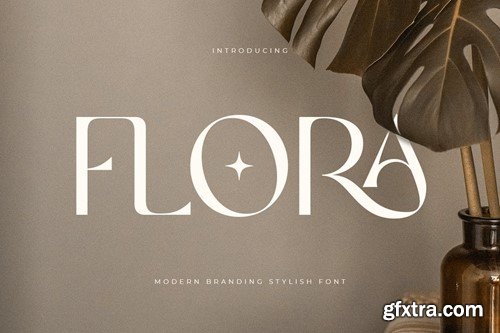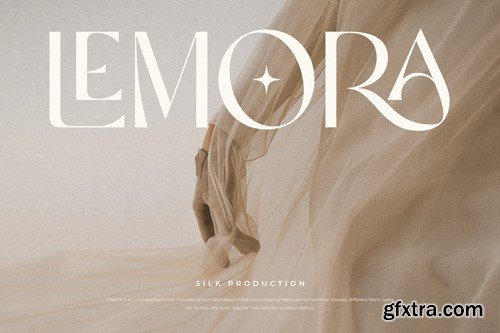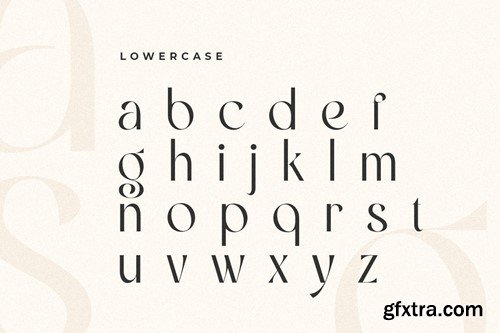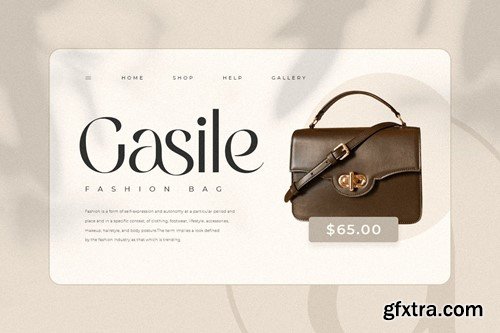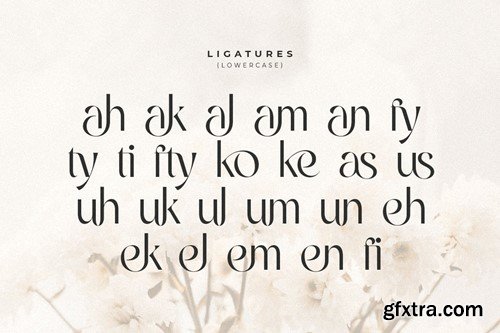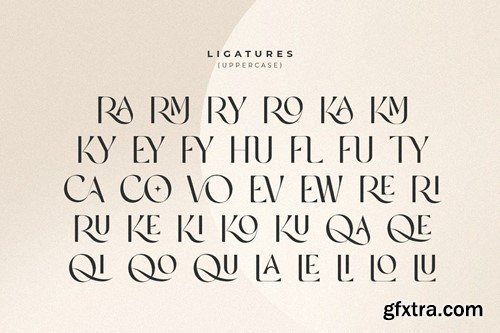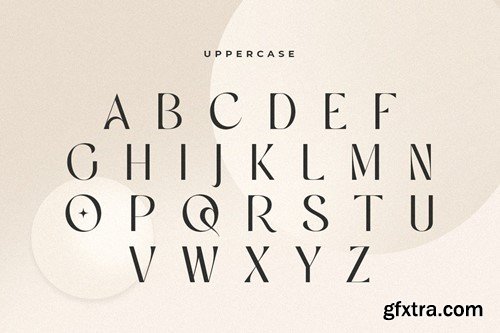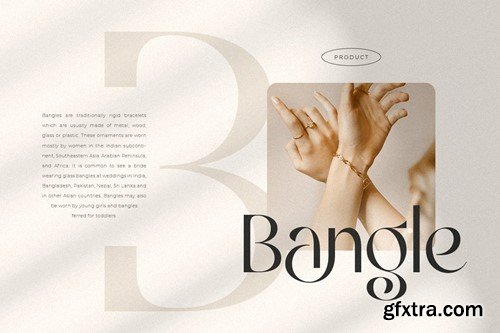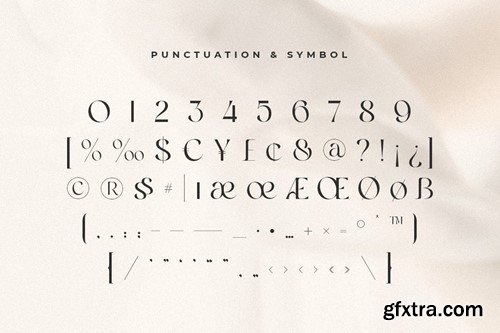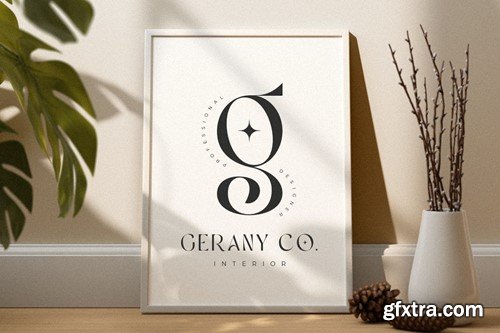
Flora - Modern Branding Stylish Font NQNYS63
Flora - Modern Branding Stylish Font
An exclusive font tailored for sophisticated and modern branding, offering an elegant aesthetic to enhance your brand's allure. Crafted with unique alternates, this font is designed to elevate the value of your brand. Whether you're a designer or a product owner seeking stylish and modern solutions, this font provides the perfect answer. Boasting an array of ligature and bohemian characters, it opens the door to endless creative possibilities, allowing you to create a myriad of variations for your unique and stylish designs.
• Ligature Characters
• Character set A-Z
• Numerals & Punctuation
• Accented Characters (West Europe)